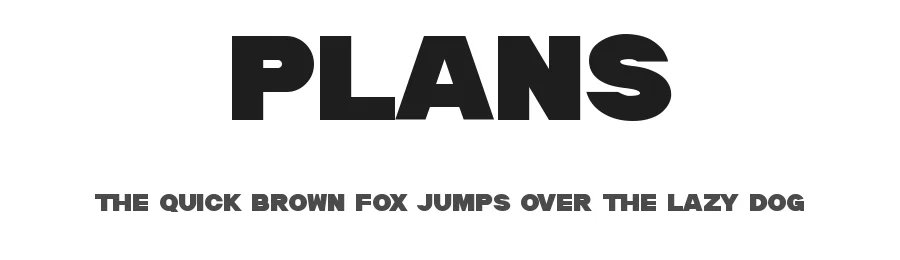
About Drobei Font
Drobei Specifications
| Font Family | Drobei |
| Full Name | Drobei |
| Glyph Count | 316 glyphs |
| PostScript Name | DrobeiRegular |
| Designer | Maikohatta |
Drobei supports 229 languages.
Drobei Font is a versatile sans-serif font that works for both headings and body text. Pair it with a contrasting serif or slab serif font to add visual interest and a clear distinction between titles and body copy.